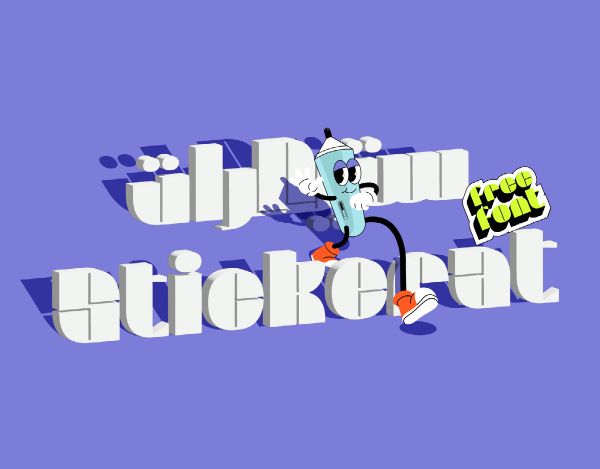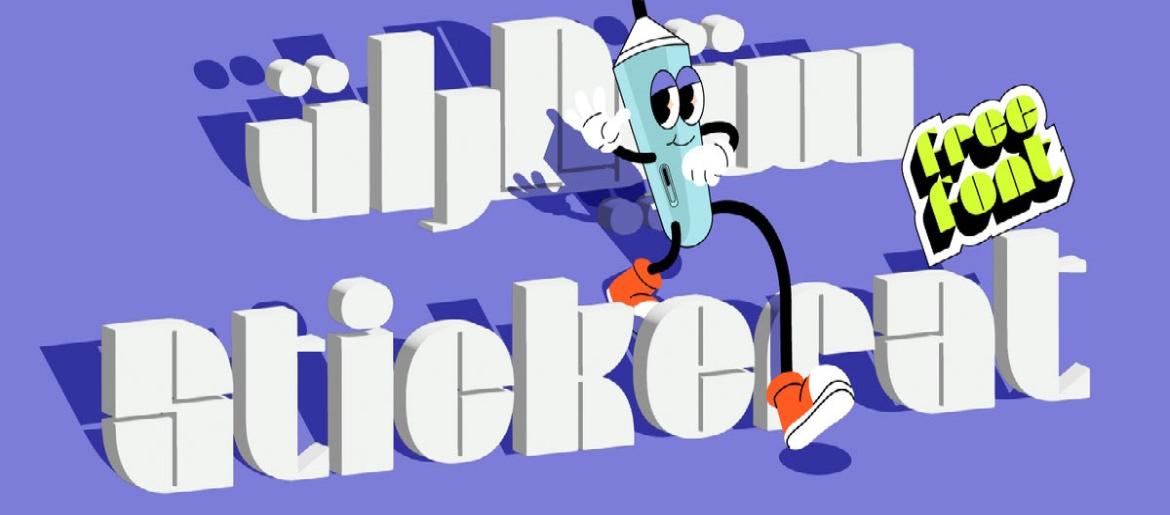
Stickerat Font
Stickerat is a bold, playful display typeface from TS Fonts designed to command attention immediately. Its confident, energetic letterforms deliver strong visual personality across headlines, posters, and logo work — and a notable bonus is its dual-script capability, supporting both Latin and Arabic, making it a valuable choice for designers working across multilingual Middle Eastern and international brand contexts.